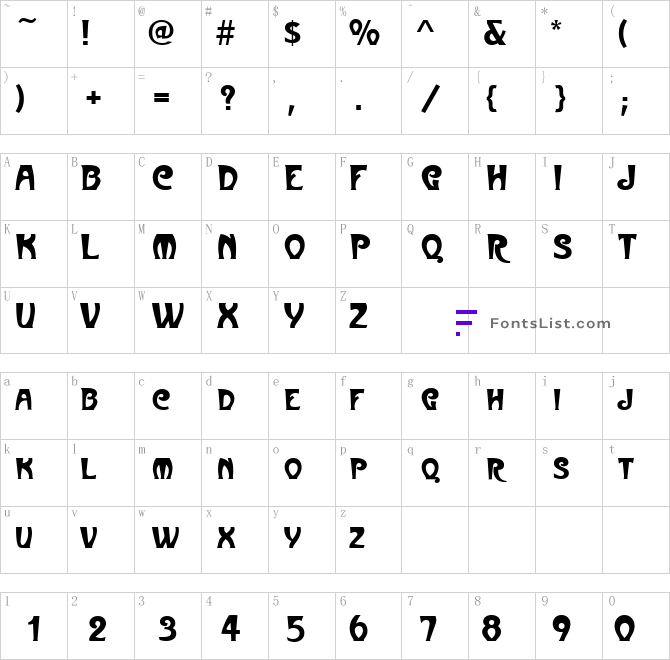
- Font Name:Art-Metropol
Art-Metropol.ttf is a very beautiful artistic font, Art-Metropol.ttf is widely used in the design and printing of various books and pictures,Art-Metropol.ttf has a strong visual impact,Art-Metropol.ttf is a commonly used font in newspapers, magazines and books, and is used in posters, e-commerce Poster design, store design, logo design, font design and other fields.Art-Metropol.